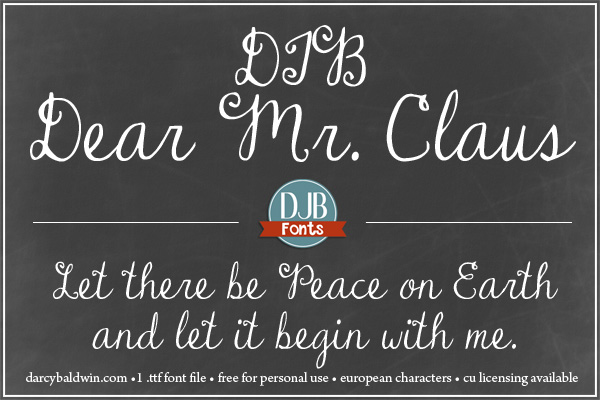
DJB Dear Mr Claus Font
DJB Dear Mr. Claus - the perfect font for all of your Christmas needs! Free for personal use with commercial use licensing available at darcybaldwinfonts.com
DJB Dear Mr Claus – the perfect font for all of your Christmas and holiday needs! If you’d like a font that is a little less decorative, try DJB Dear St. Nick.